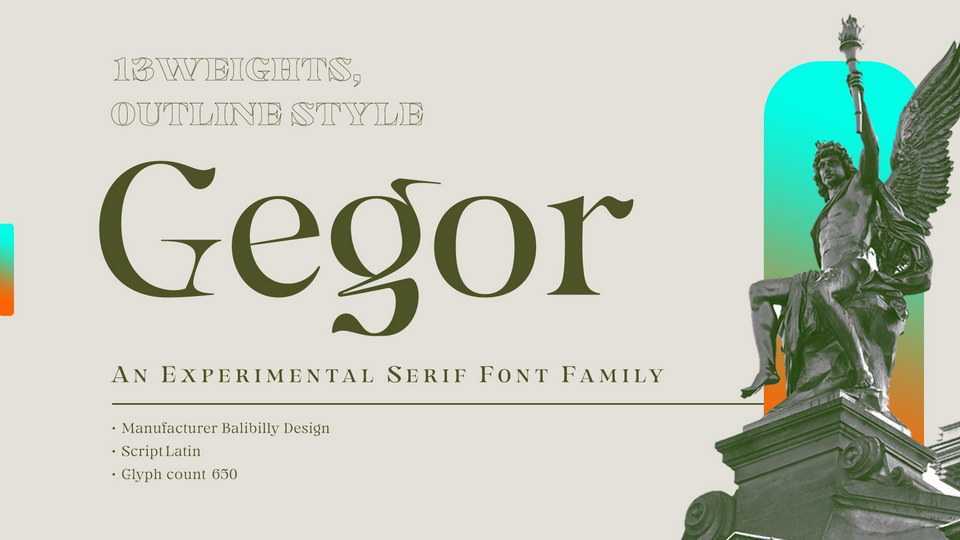
Download Gegor font, an experimental serif display typeface to give give a unique vibe to your works. Gegor is perfect for posters, logos, branding, magazines, websites, and more.
Designer: Balibilly Design